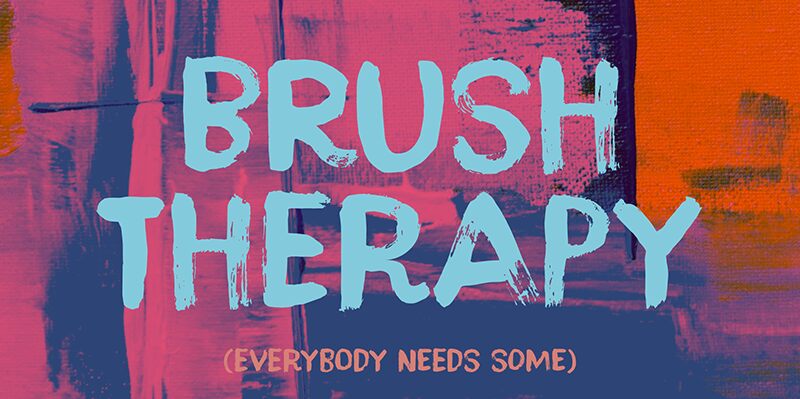
Brush Therapy DEMO Regular
Brush Therapy font by Hanoded captures the raw energy of hand-drawn brush strokes, featuring a bold and expressive style. This unique brush font is ideal for designers seeking a free font that adds an artistic flair to their projects. The dynamic and textured appearance makes it perfect for eye-catching headlines, creative posters, and engaging social media graphics.
With its bold weight and distinctive character, Brush Therapy stands out in any design context, delivering an authentic and lively aesthetic. Whether you're crafting innovative branding materials or compelling promotional content, this font's charm brings a vibrant touch to digital and print designs alike.